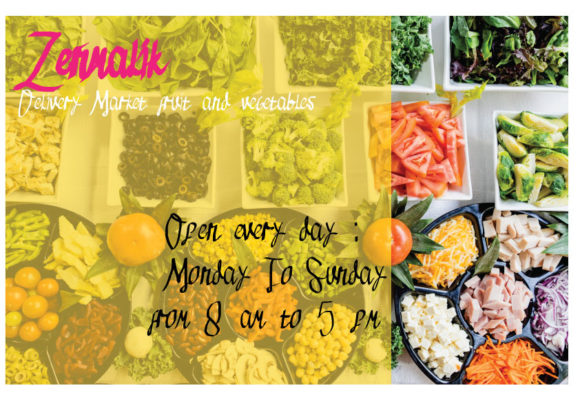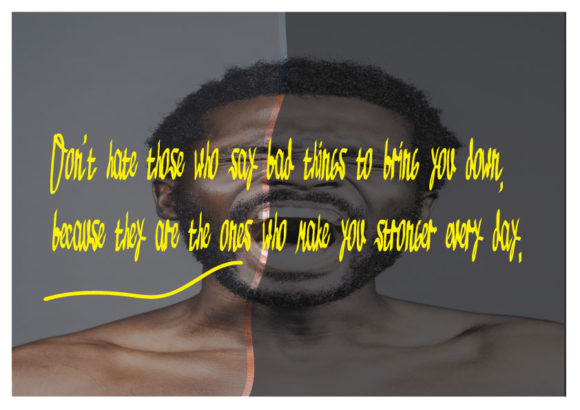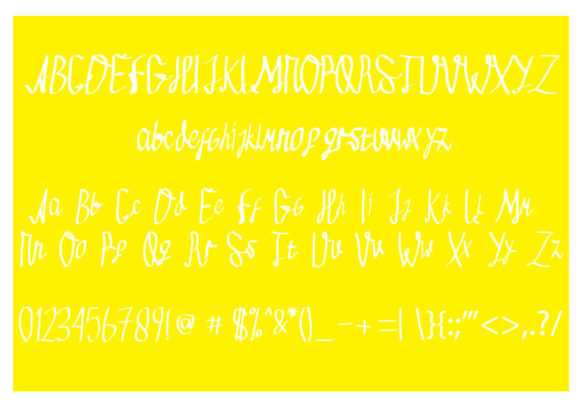
About Hopipolla Font
Hopipolla is a sweet and unique handwritten font. This gentle font will look gorgeous on a variety of design ideas. It will add a joyful and romantic touch to each of your projects!